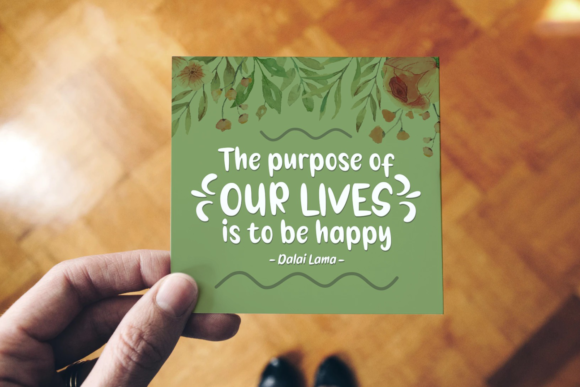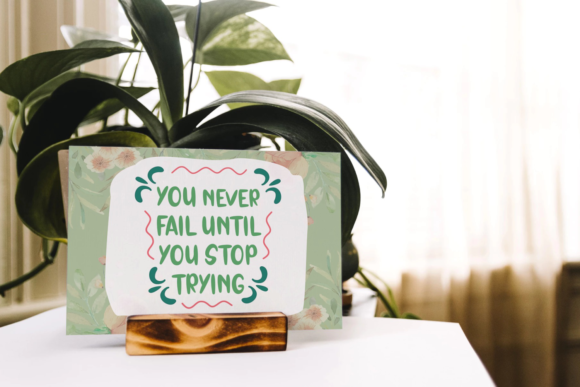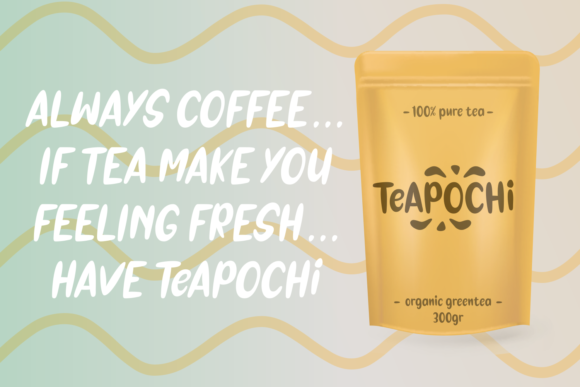
HomeScript FontsKetan Font Script Fonts Ketan Font FacebookXPinterestWhatsApp Ketan Font Poster 2 Ketan Font Poster 3 Ketan Font Poster 4 About Ketan Font Ketan is a beautiful, smooth handwritten font that will effortlessly create stand-out design projects. DOWNLOAD NOW People also explored Melinda Font Amanah Font Charcoal Can Cooler Mockup Tamarin Font Sweety Milky Font Holiday Font Jonathan Smith Font Student Art Font Hey Yoga Font 305 0 TagsKetan Font Previous articleWanoja FontNext articleOnion Stick Font LEAVE A REPLY Cancel reply Comment: Please enter your comment! Name:* Please enter your name here Email:* You have entered an incorrect email address! Please enter your email address here Website: Save my name, email, and website in this browser for the next time I comment. Personal Use Free Wildwest Personal Use Free Read more about this font Cute Messy Personal Use Free Read more about this font Love Story Personal Use Free Read more about this font Bigstone Personal Use Free Read more about this font BLOG Best Fonts for YouTube Videos: Make Your Thumbnails Stand Out Best Fonts for YouTube Videos: Make Your Thumbnails Stand Out Choosing the right font can make a massive difference in how your YouTube videos perform.... Using Fonts in Digital Marketing: Tips to Strengthen Your Brand Identity Top 7 Google Fonts Alternatives for Faster and Privacy-Friendly Web Design (2025) Elegant Wedding Invitation Fonts – Handwritten & Script Fonts